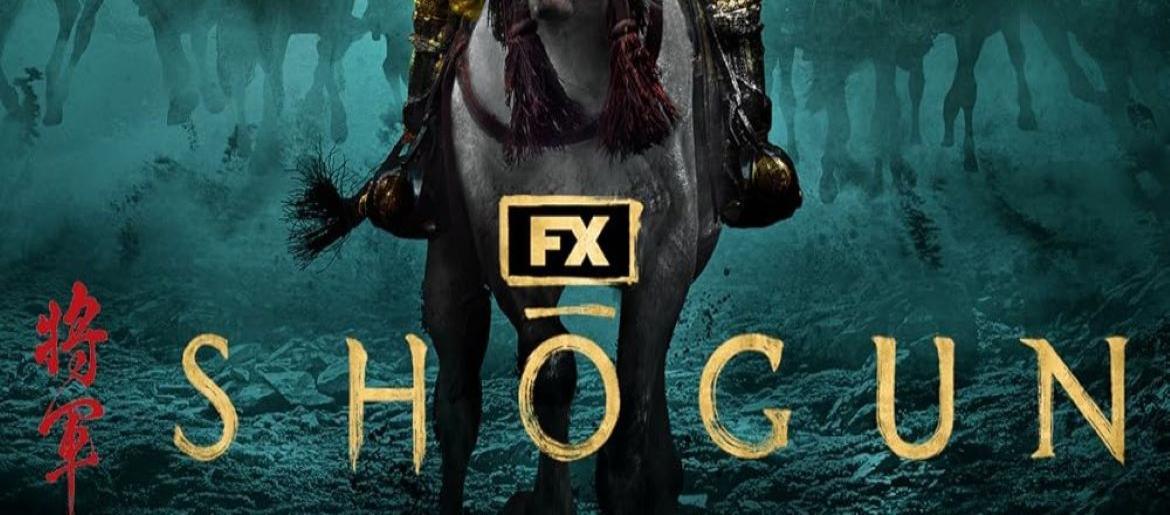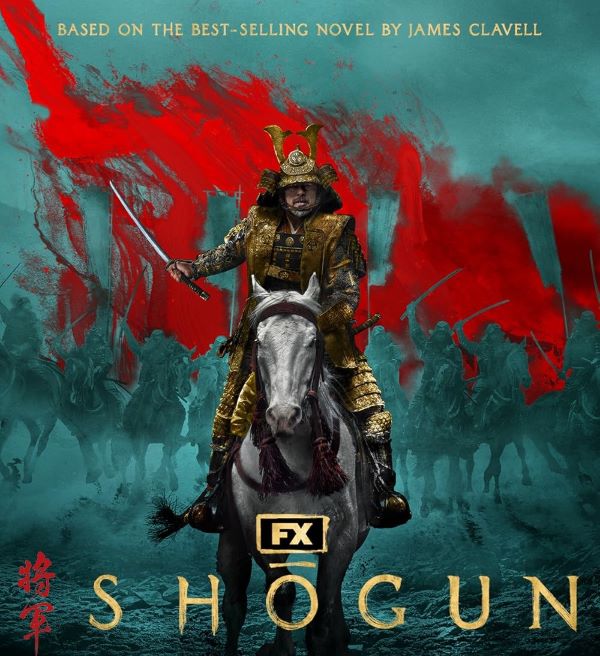
Shogun Font
What Font is Shogun?
The Shogun Font used in the series title is likely a custom-designed typeface created specifically for the show. We couldn’t locate an exact commercial match. However, we’ve found an alternative font that closely emulates its clean, bold, and structured look—great for designers aiming to recreate the series’ visual identity without the premium license.
About Shogun
Shogun (2024) is a historical drama television series set in Japan in the year 1600. It follows an English sailor who becomes shipwrecked in Japan and becomes entwined in the political machinations of a powerful warlord, while a noblewoman with a complex past navigates shifting alliances. With its sweeping visuals, high-stakes intrigue and cultural depth, Shōgun blends epic storytelling with intimate character drama.